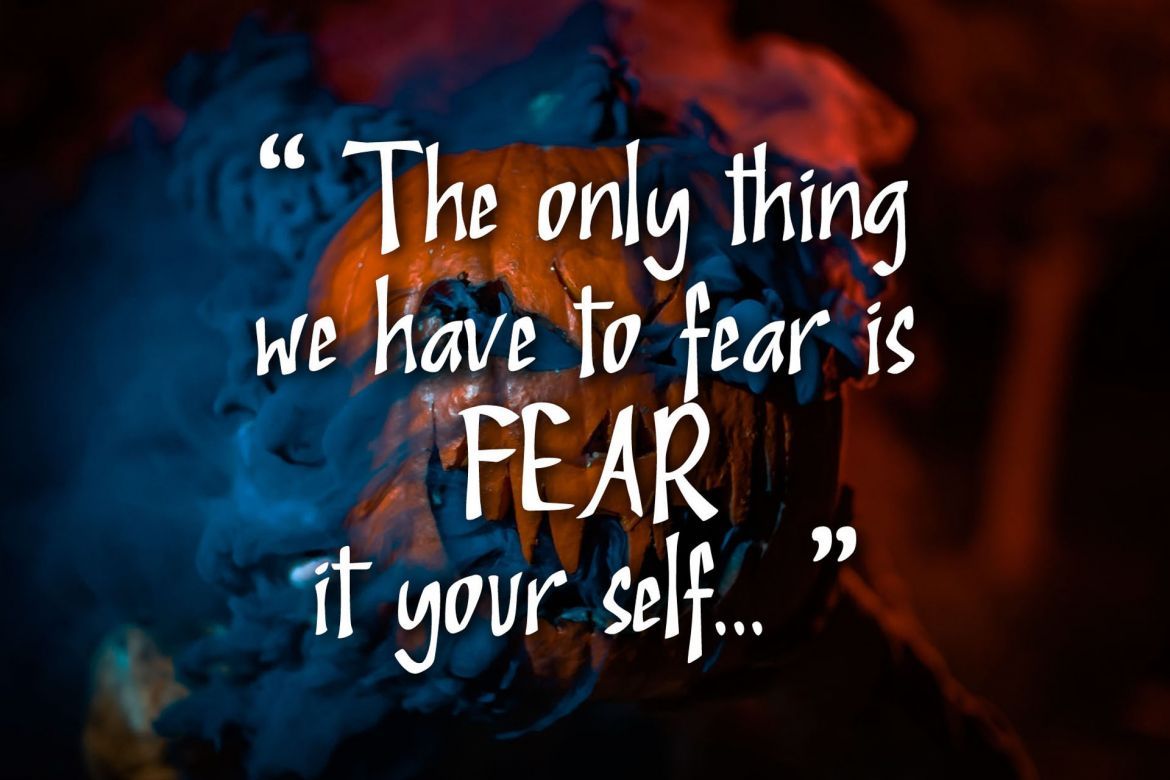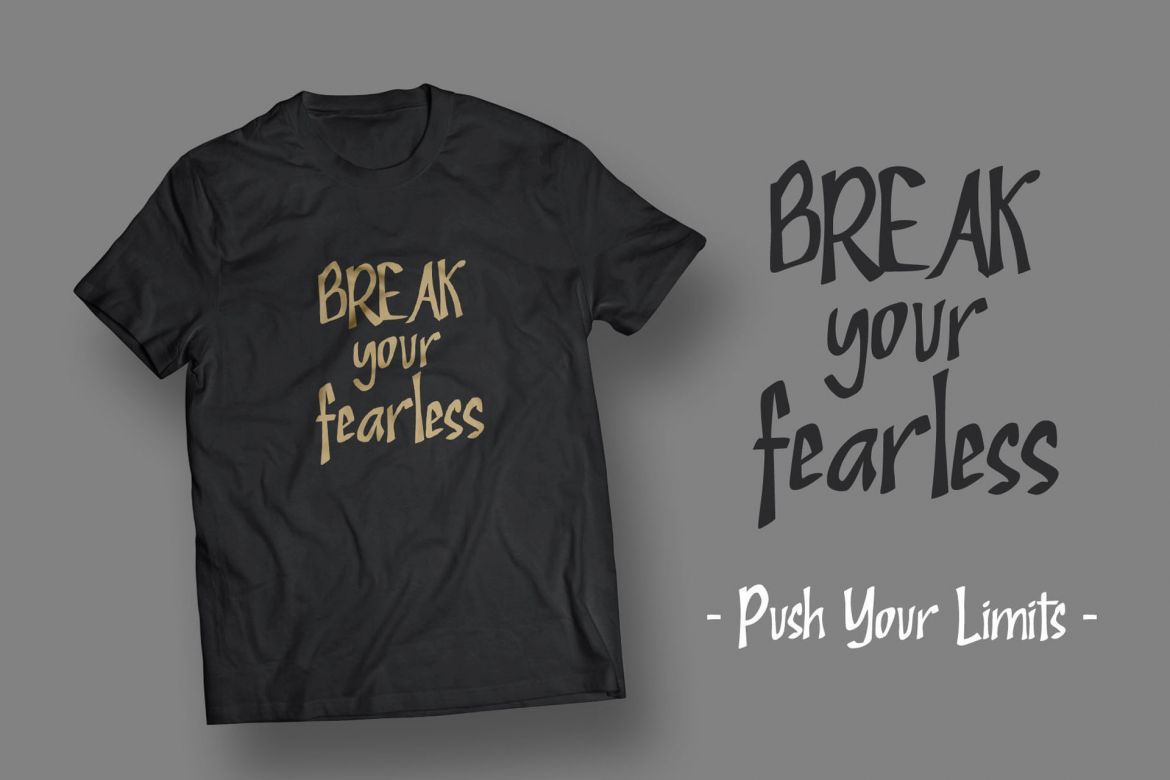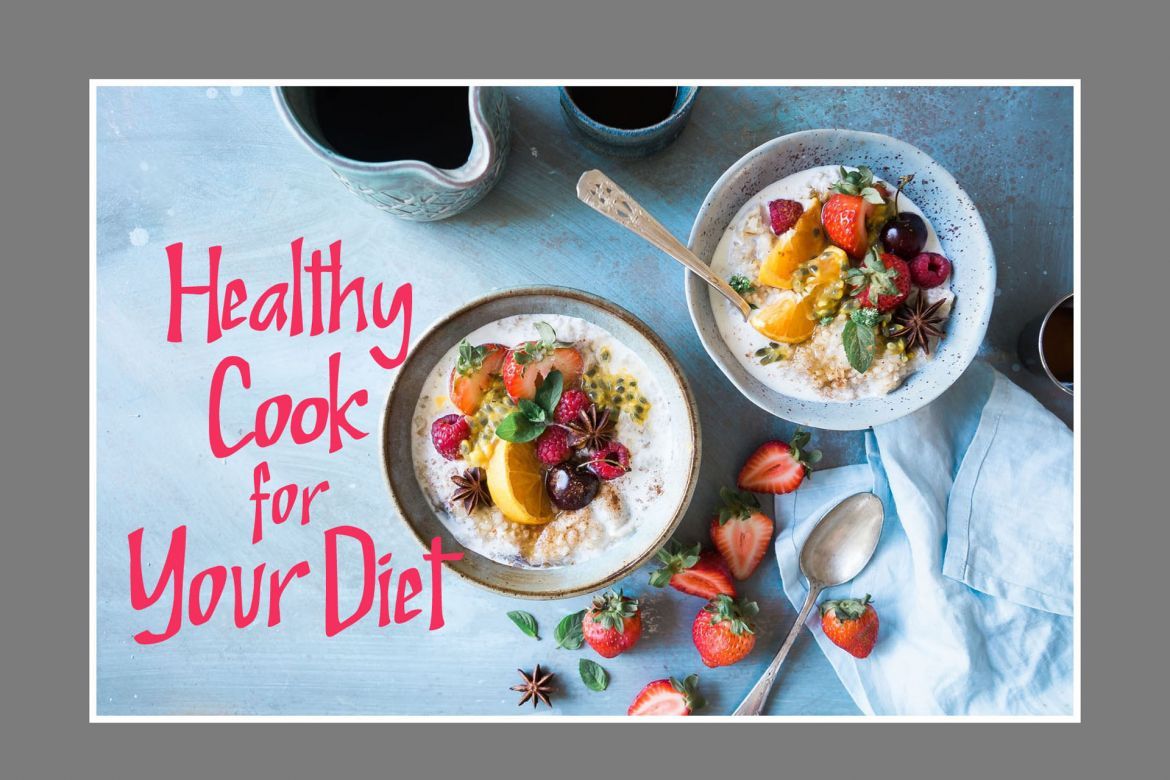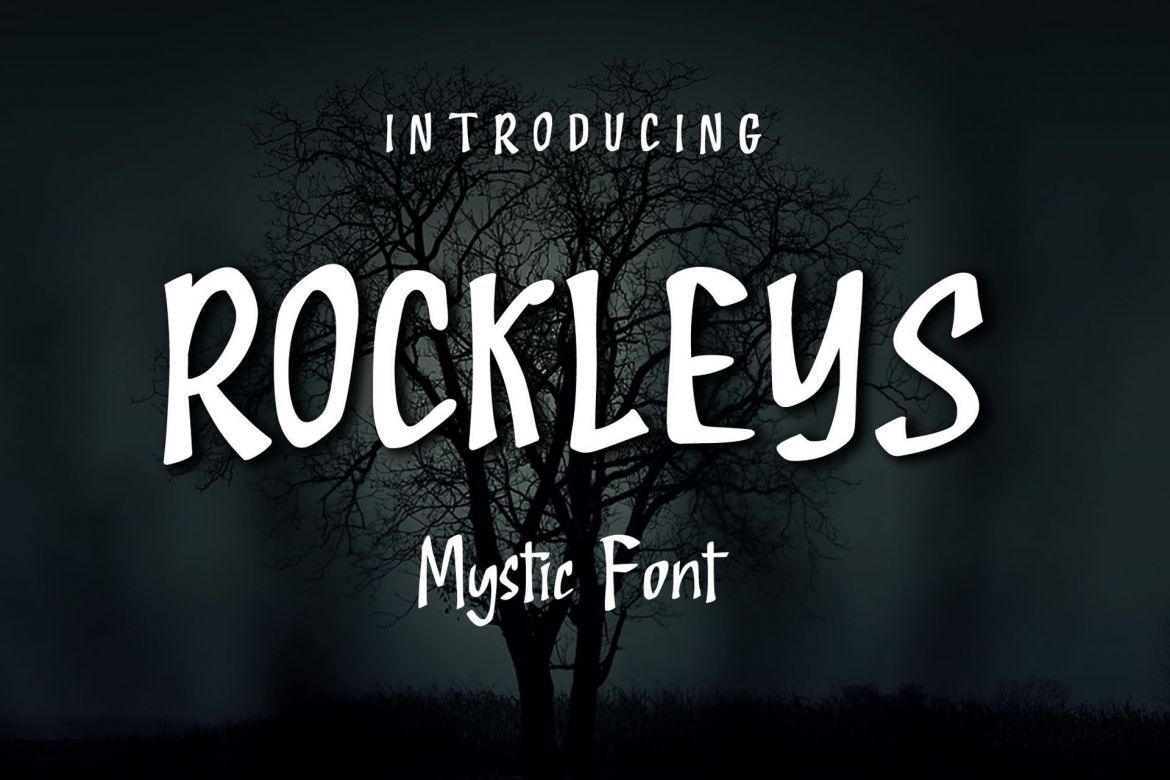
Rockleys Display Font
Rockleys is the perfect font for your Halloween event and your other purpose who need feel mystical, scary and unique it will effortlessly enhance any crafting projects and promotional tools for the spookiest time of the year.
• unique font for dispalys & promotion tools